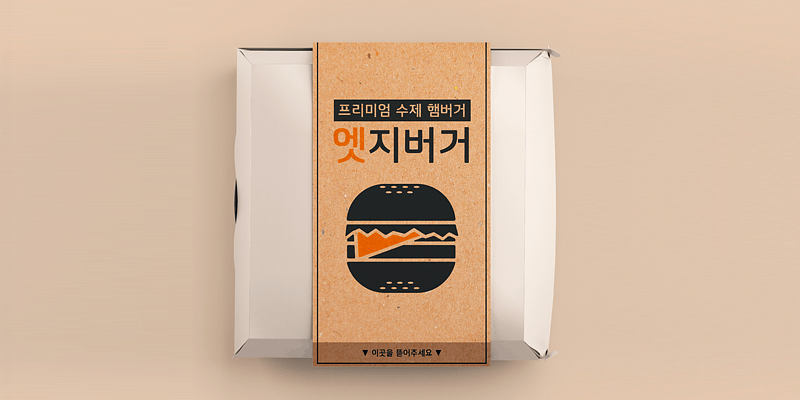
A Sans Serif with a harmonious blend of curves and straight strokes.
Ongothic has a beautiful blend of curves and straight lines, and stands on a middle ground for more specified uses between the stiff and full Sans Serif fonts and the soft and sentimental Sans Serif fonts.